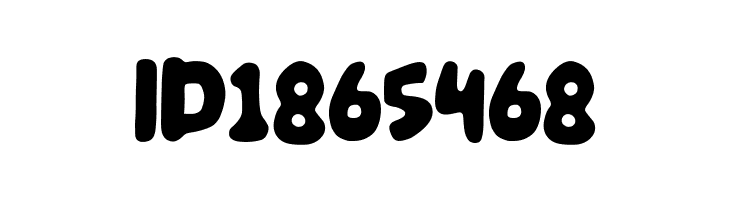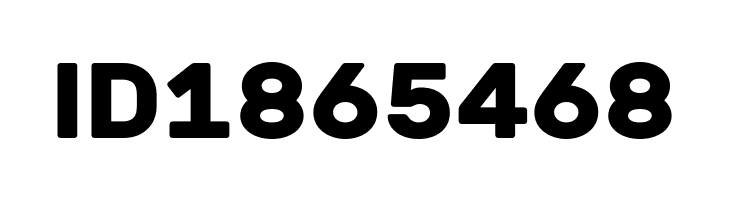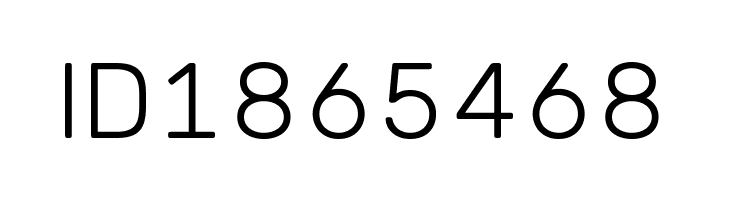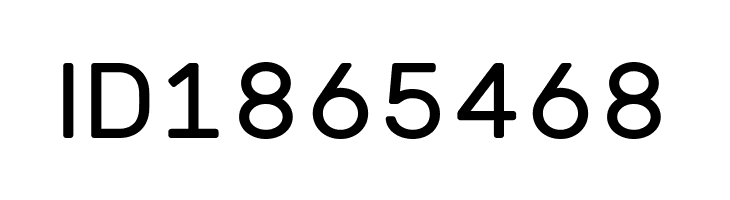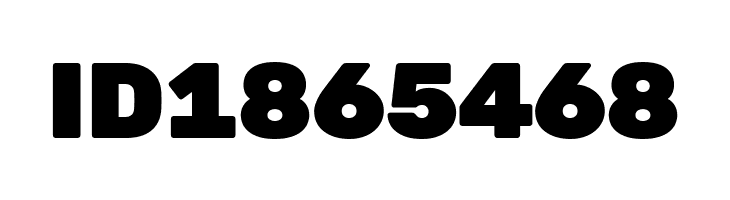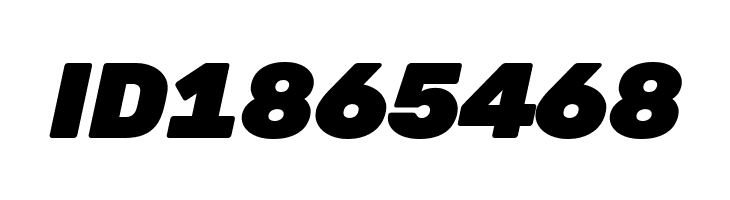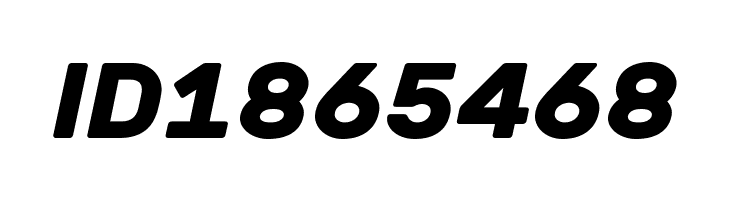
• Hexahedron Rounded
( www.pixelsagas.com )
A playful, dice-inspired font with rounded square enclosures and directional indicators.
• Hexametric
( Phallic Questionar )
A geometric, angular font with hexagonal shapes and linear strokes, ideal for modern designs.
• Hey Kidstoon
( Fonts by Letter Battoyart )
A playful, bold font with rounded, bubbly characters and a hand-drawn feel.
• Heyline
A bold, playful script font with smooth, flowing curves.
• Hezaedrus
A modern, geometric sans-serif font with clean lines and uniform stroke widths.
• Hezaedrus Black
A bold, impactful font with thick, uniform strokes ideal for headlines.
• Hezaedrus Black Italic
A bold, italicized font with strong, dynamic characters.
• Hezaedrus Bold
A bold, modern sans-serif typeface with strong lines and uniform width.
• Hezaedrus Bold Italic
• Hezaedrus ExtraLight
A clean, modern sans-serif font with an extra-light weight and minimalist design.